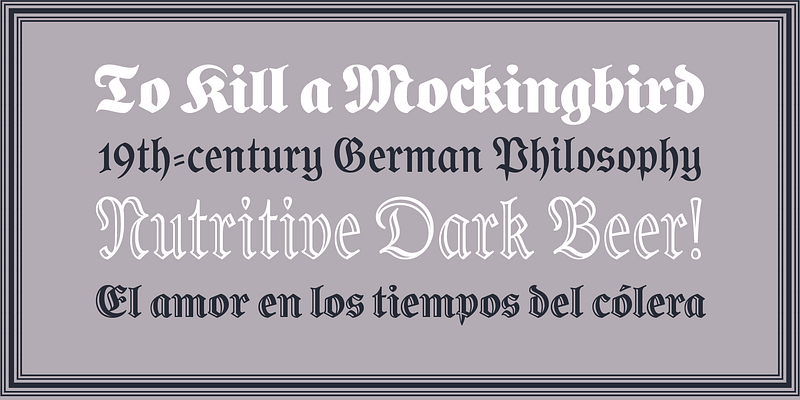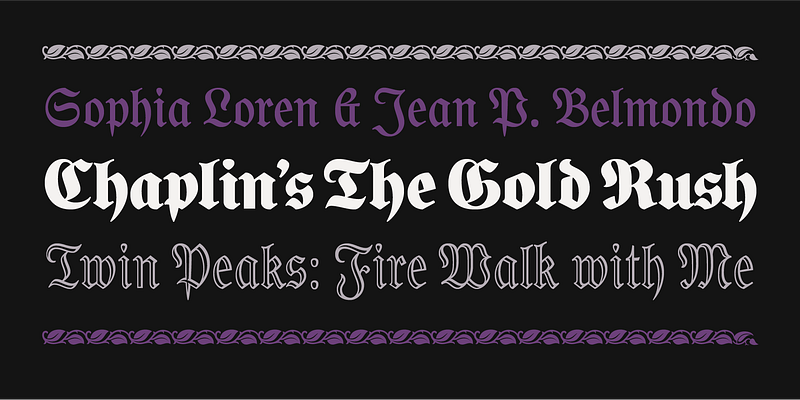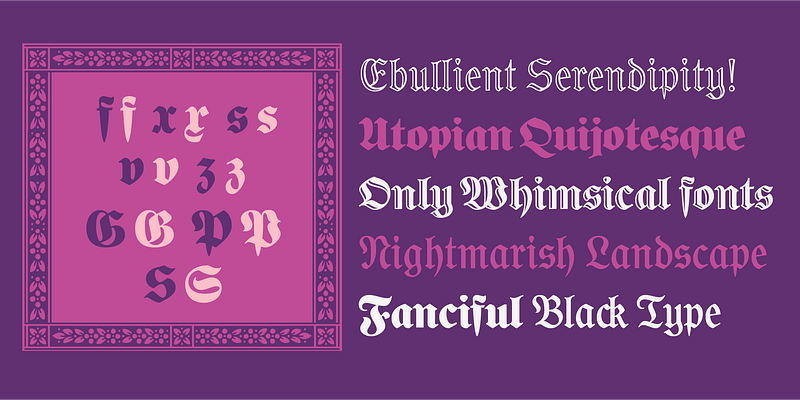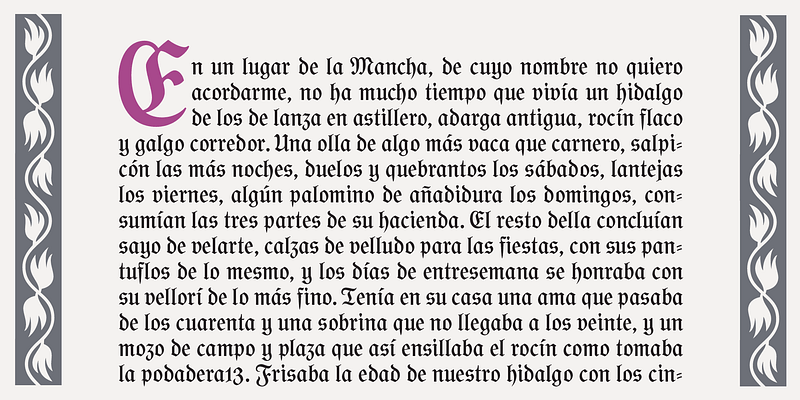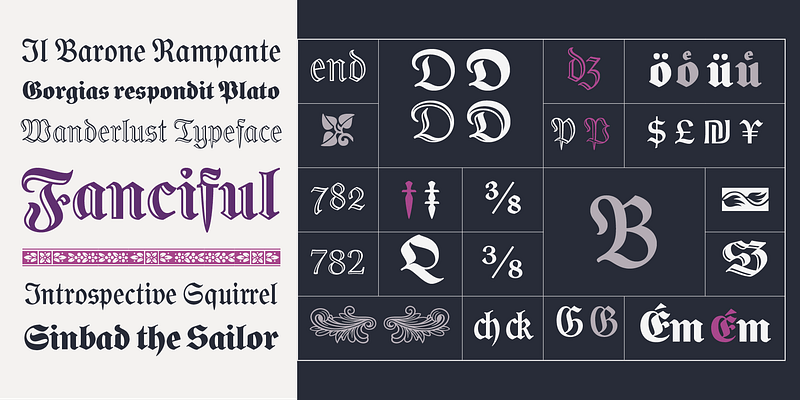
Mexican type designer José Manuel López Rocha, in his exploration of old books, found and fell in love with this Schulfraktur, a traditional blackletter that was commonly used to compose school books in 19th century Germany. In his interpretation, on the one hand faithful to the original style and on the other hand executed with impeccable drawing, this Schulfraktur (baptized “Gorgias” after the title of the book where he first found it) added new glyphs, irresistible ornaments and even a complete set of initials of the time, all of which contribute to a proper staging of this very bookish German type style. Gorgias includes 4 versions, Regular and Black in solid and open forms. This unique typeface is intended for designers of conviction who like to captivate their readers by combining classic and contemporary elements in a special way.